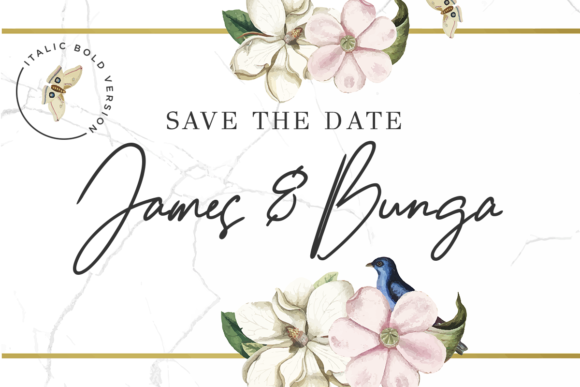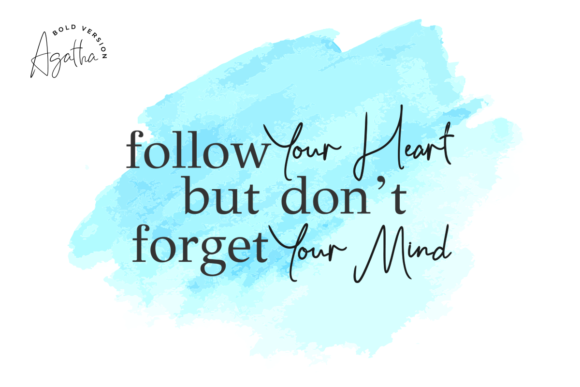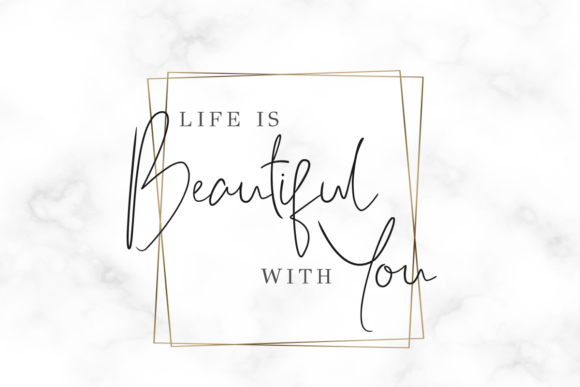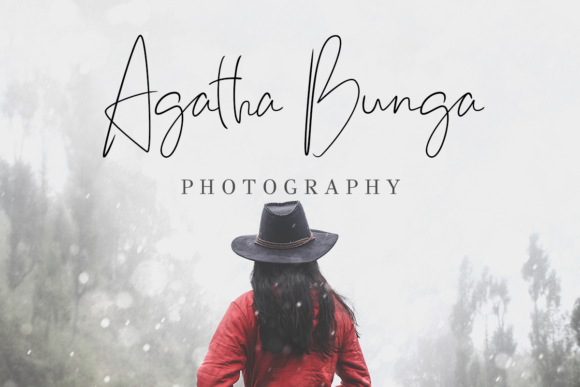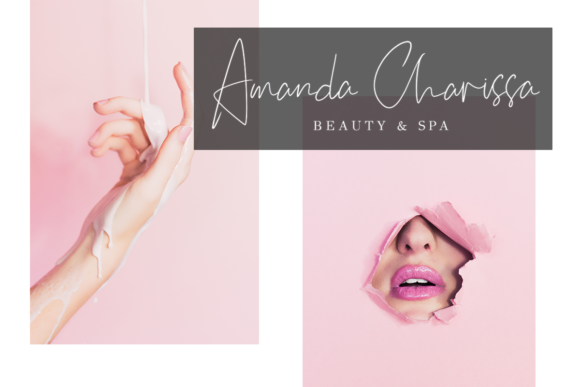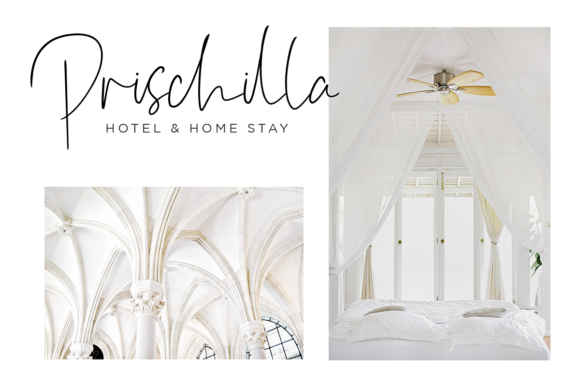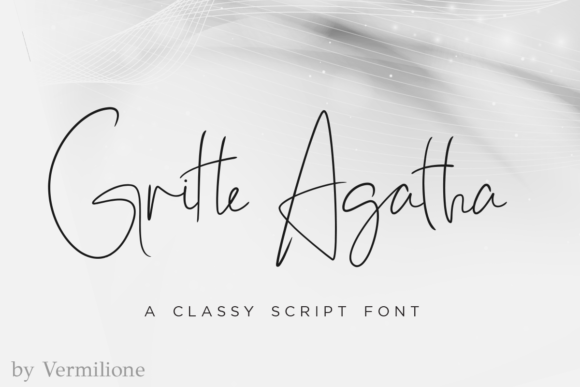
Gritte Agata Font: Elevate Your Designs with Elegance and Sophistication
In the world of typography, a font can make or break a design. For designers and crafters looking to add a touch of luxury and refinement to their work, the Gritte Agata font is an excellent choice. This classy script family offers four elegant styles that are sure to give your designs an upscale and chic look.
What is Gritte Agata Font?
Gritte Agata is a beautifully crafted script font that exudes elegance and sophistication. With its flowing lines and intricate details, this font is perfect for designs that require a high level of refinement. Whether you’re working on a branding project, a wedding invitation, or a fashion magazine, Gritte Agata is sure to impress.
Key Features of Gritte Agata Font
- 4 Elegant Styles: Gritte Agata comes in four distinct styles, each with its own unique character and charm. From classic and traditional to modern and trendy, there’s a style to suit every design need.
- Classy and Sophisticated: This font is designed to add a touch of luxury to your designs. Its elegant lines and refined details make it perfect for high-end branding, fashion, and lifestyle projects.
- Script Font: Gritte Agata is a script font, which means it’s perfect for adding a personal and creative touch to your designs. Its flowing lines and connections make it ideal for creating beautiful, hand-written text.
- Versatile: This font is incredibly versatile, making it suitable for a wide range of design applications. From digital projects to print materials, Gritte Agata is the perfect choice.
How to Use Gritte Agata Font in Your Designs
Using Gritte Agata in your designs is easy. Here are a few tips to get you started:
- Pair it with a Sans-Serif Font: For a classic and timeless look, pair Gritte Agata with a sans-serif font. This will create a beautiful contrast between the elegant script font and the clean, modern sans-serif font.
- Use it for Headings and Titles: Gritte Agata is perfect for headings and titles. Its elegant lines and refined details make it ideal for creating eye-catching text that grabs attention.
- Add a Personal Touch: Use Gritte Agata to add a personal touch to your designs. Its script font style makes it perfect for creating hand-written text that adds a touch of warmth and personality to your designs.
Benefits of Using Gritte Agata Font
There are many benefits to using Gritte Agata in your designs. Here are a few:
- Elegance and Sophistication: This font adds a touch of luxury and refinement to your designs, making it perfect for high-end branding and lifestyle projects.
- Versatility: Gritte Agata is incredibly versatile, making it suitable for a wide range of design applications.
- Easy to Read: Despite its elegant lines and refined details, Gritte Agata is easy to read, making it perfect for body text and captions.
- Unique and Creative: This font is unique and creative, making it perfect for designers who want to add a personal touch to their designs.